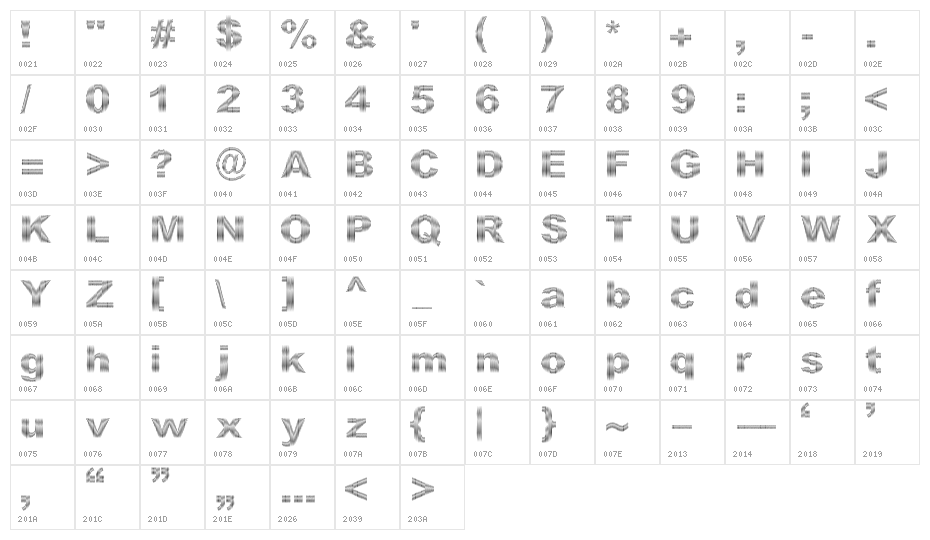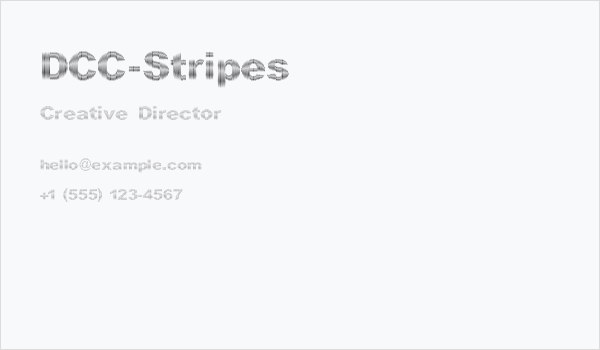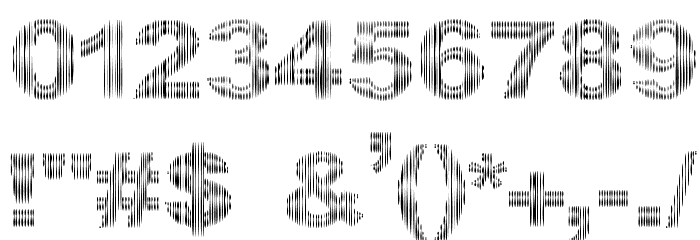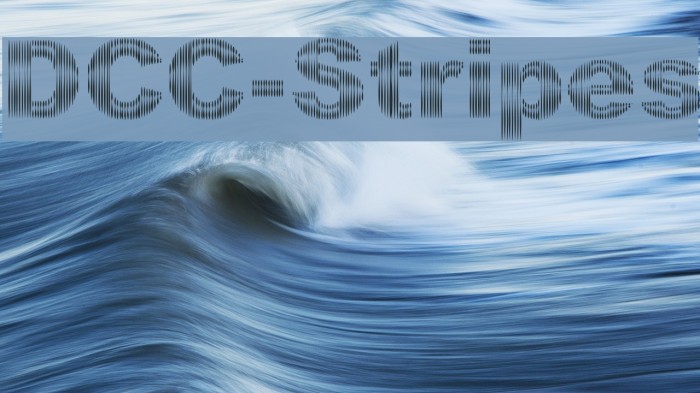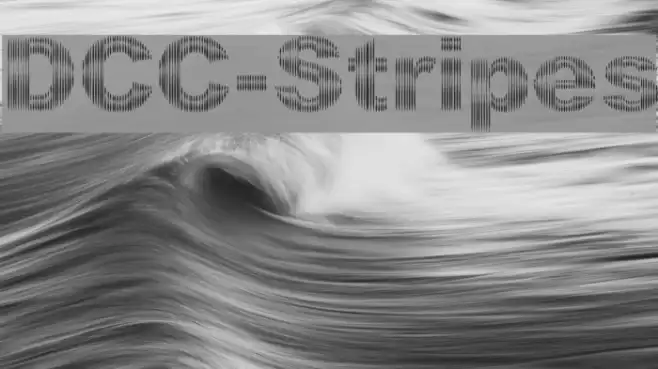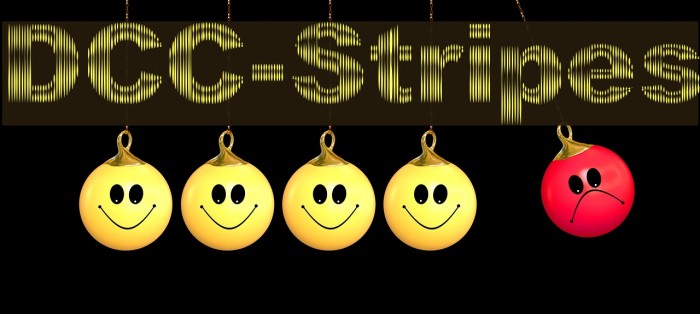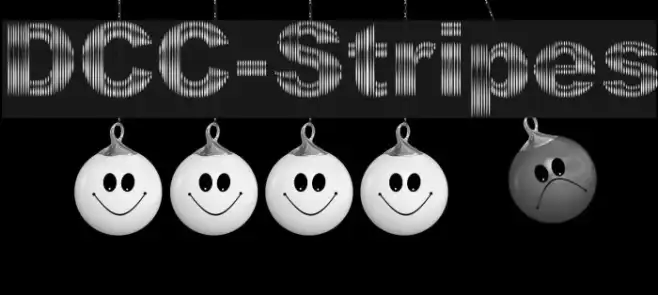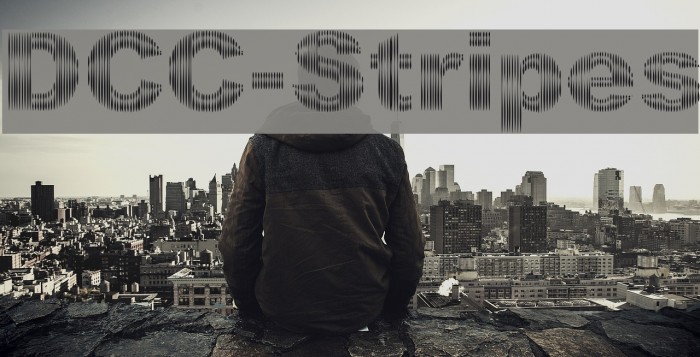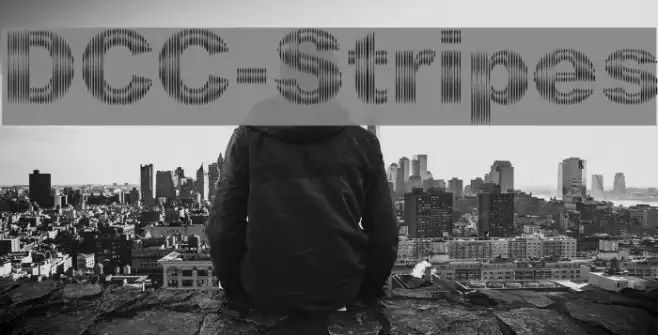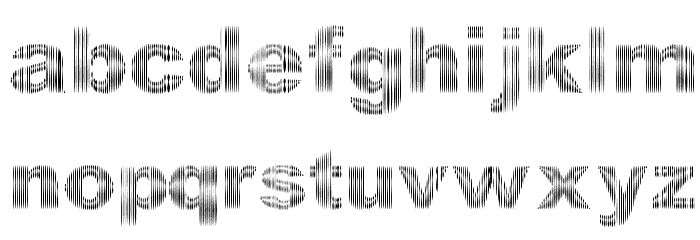
DCC-Stripes Font
DCC-Stripes Description
This font features a unique striped pattern that runs vertically through each character, creating a visually striking and modern appearance. The letters are bold and uppercase, with a consistent width that gives them a uniform look. The lowercase letters maintain the same striped design, ensuring cohesion across the typeface. Numbers and special characters are also included, each with the same distinctive pattern. The font's design is both decorative and functional, making it suitable for a variety of creative projects. Its high contrast and bold style make it stand out, while the striped effect adds a layer of complexity and interest.
| Proposed Projects | Ideal for branding, posters, headlines, and any project requiring a bold, eye-catching typeface. |